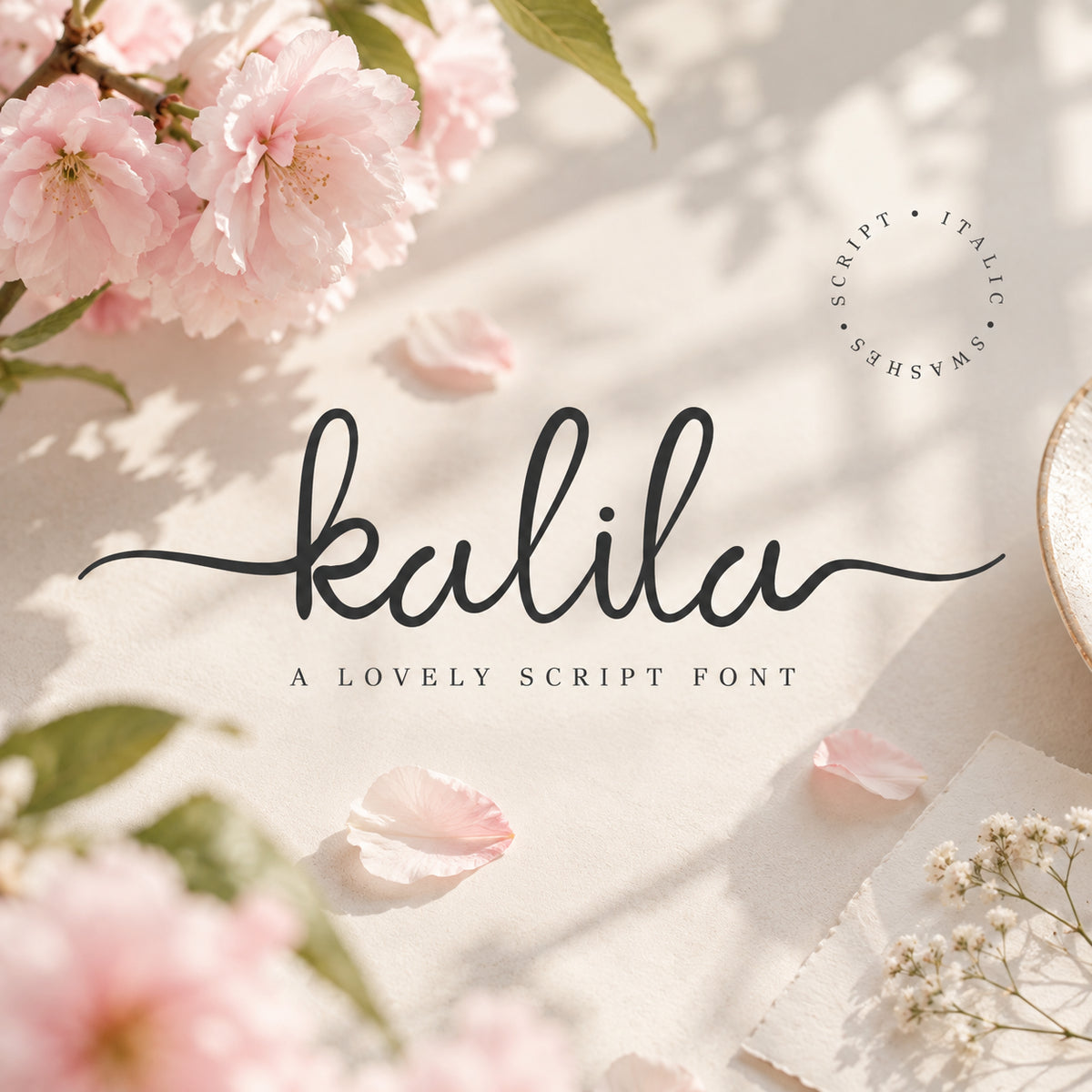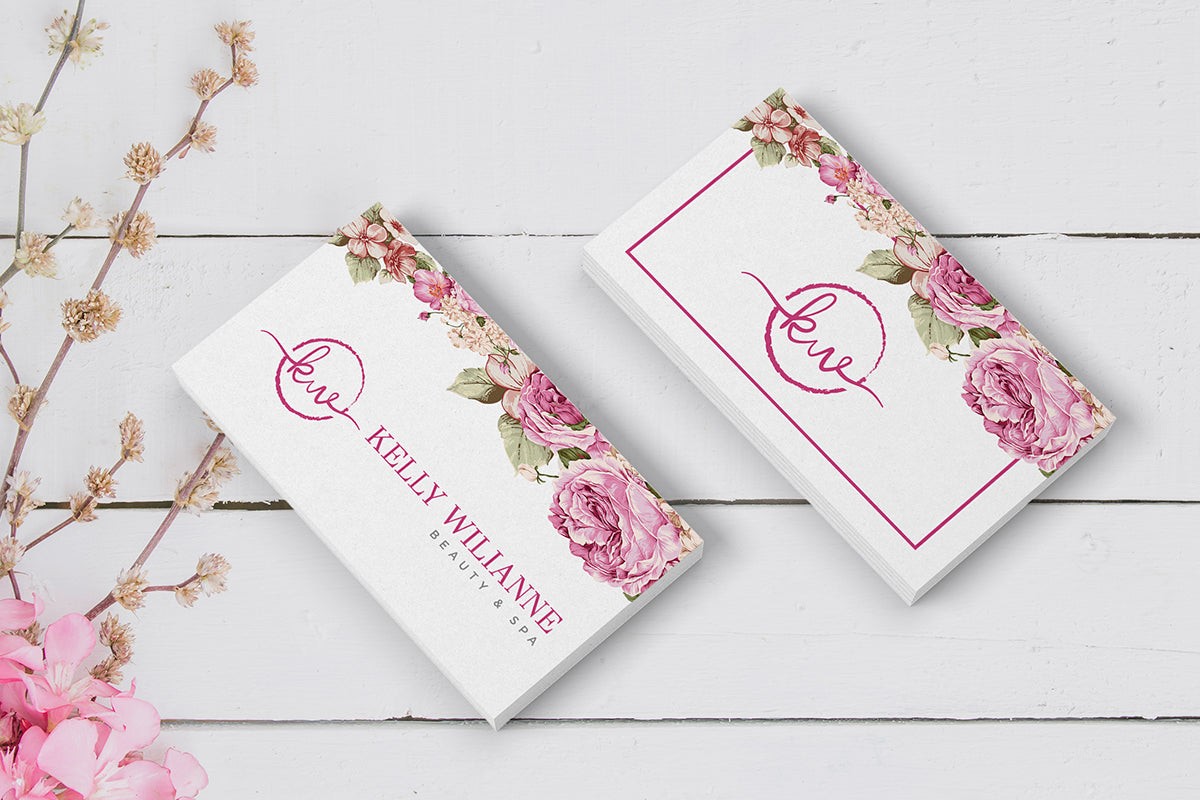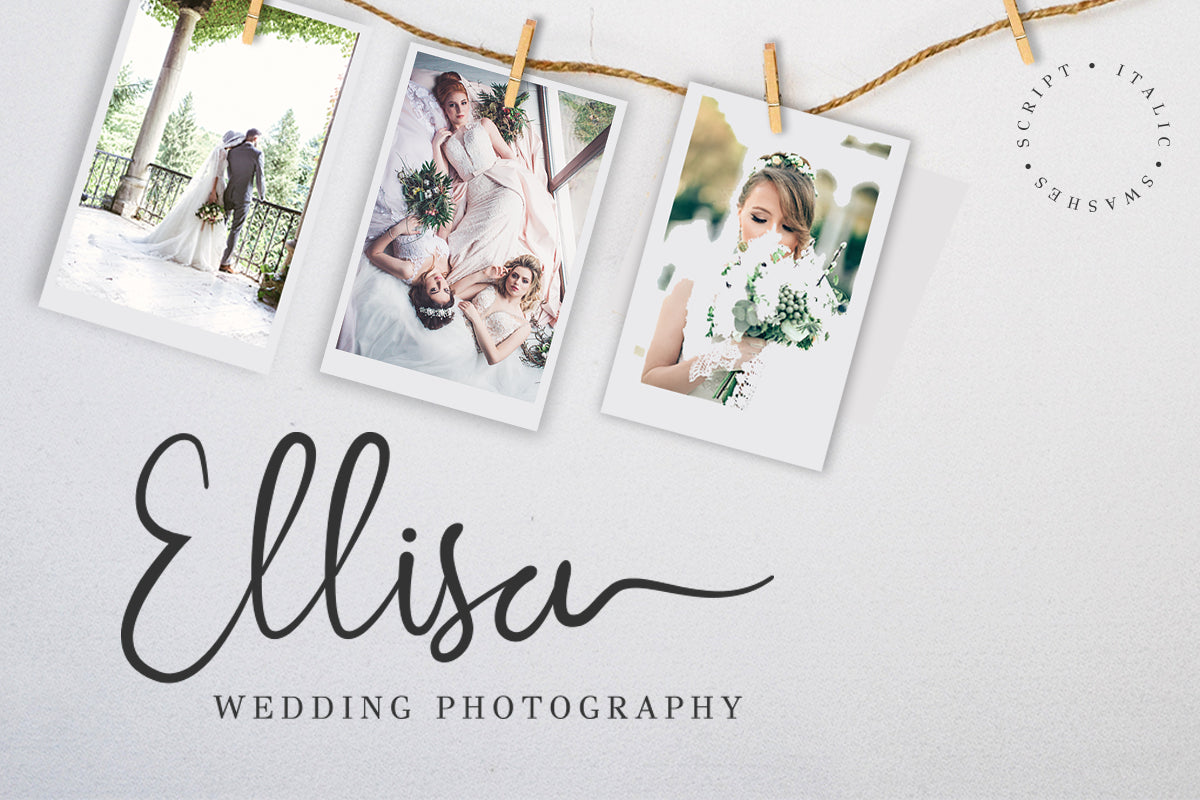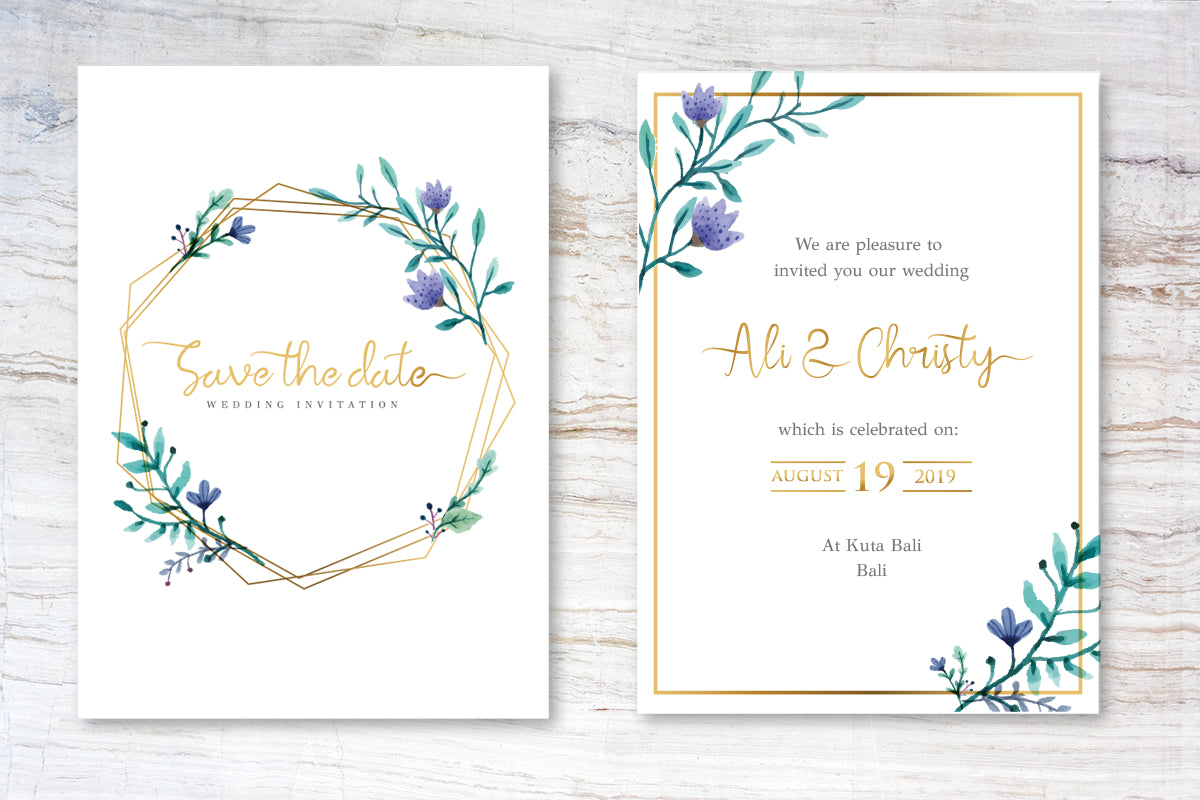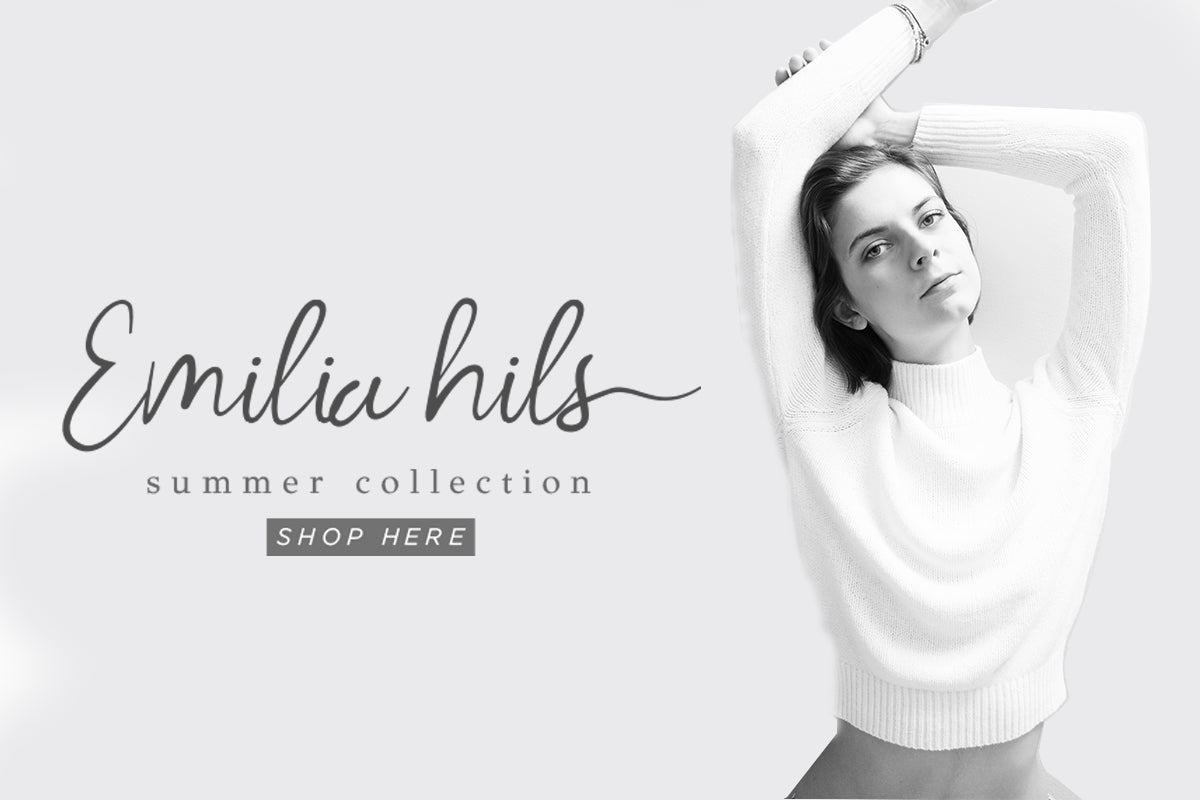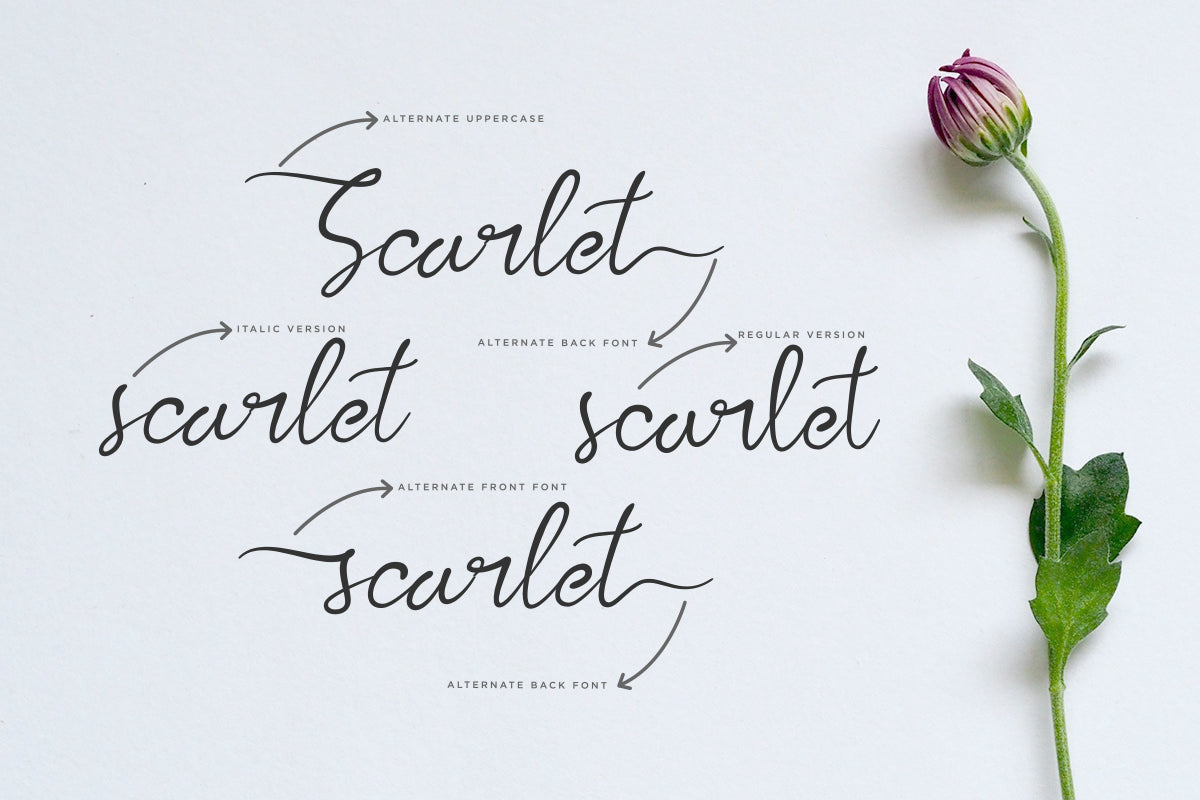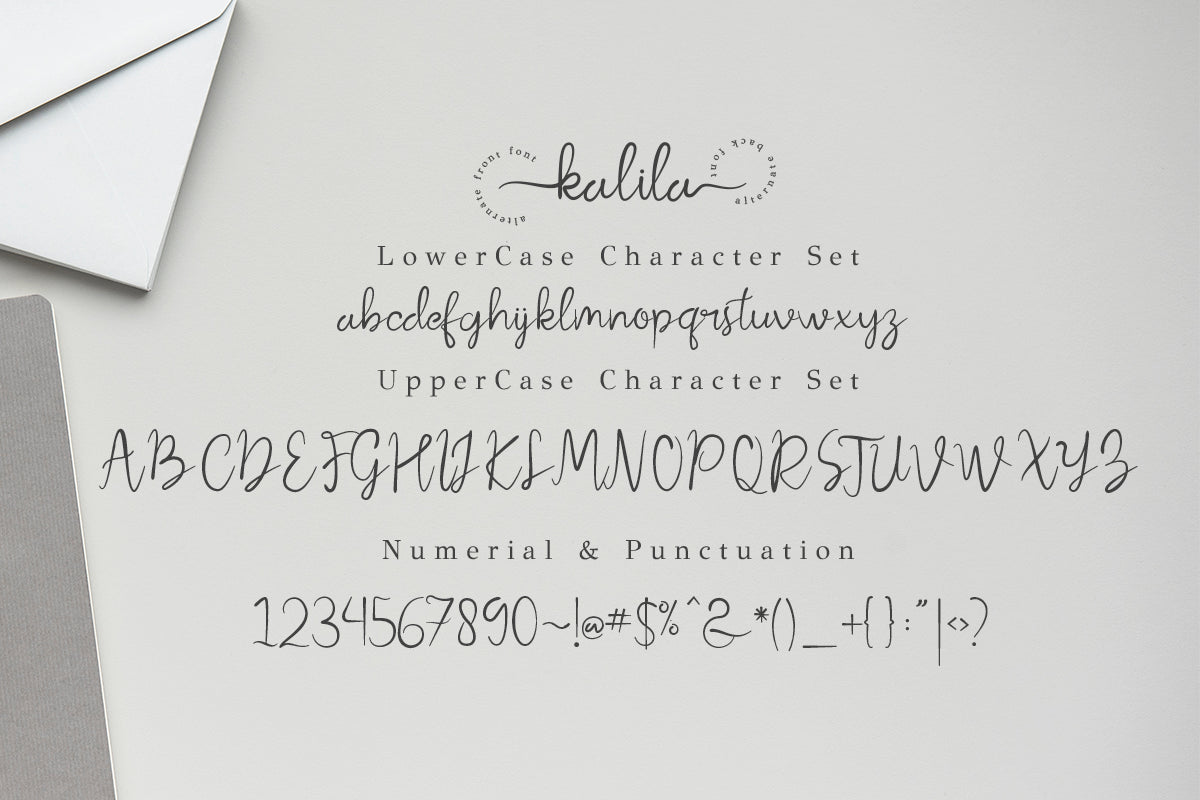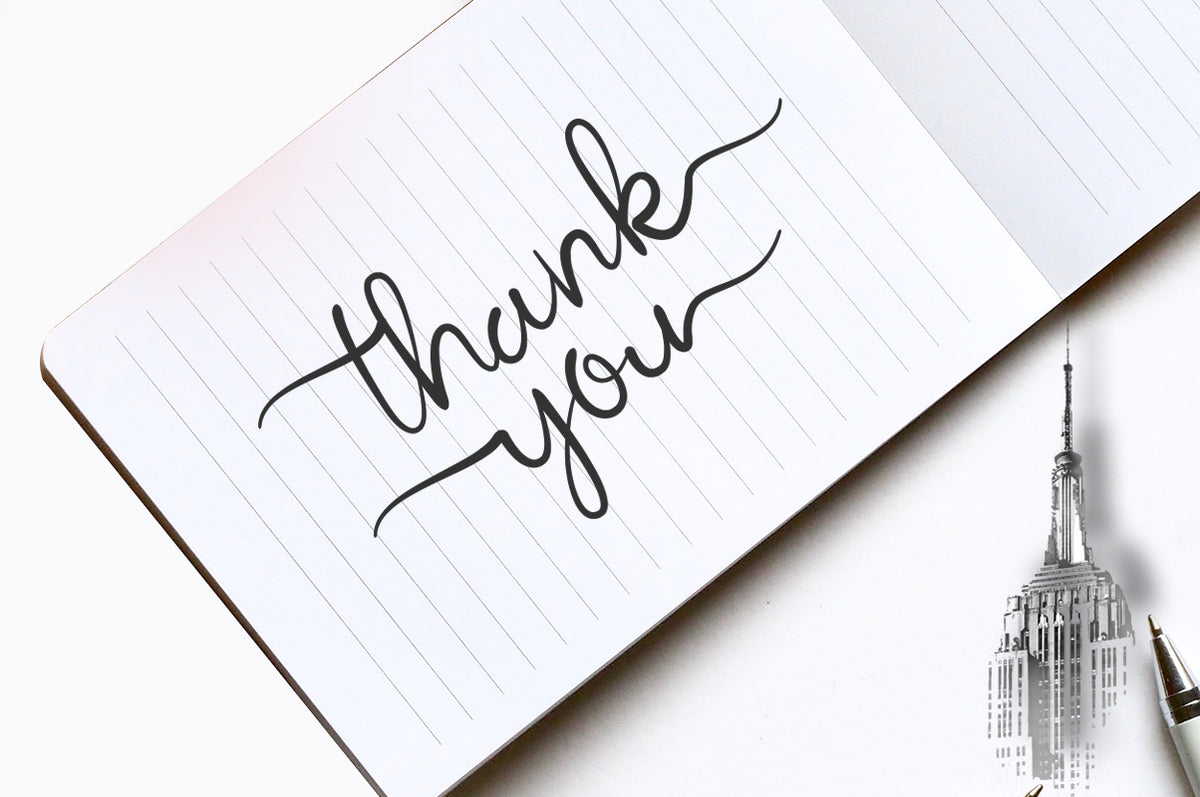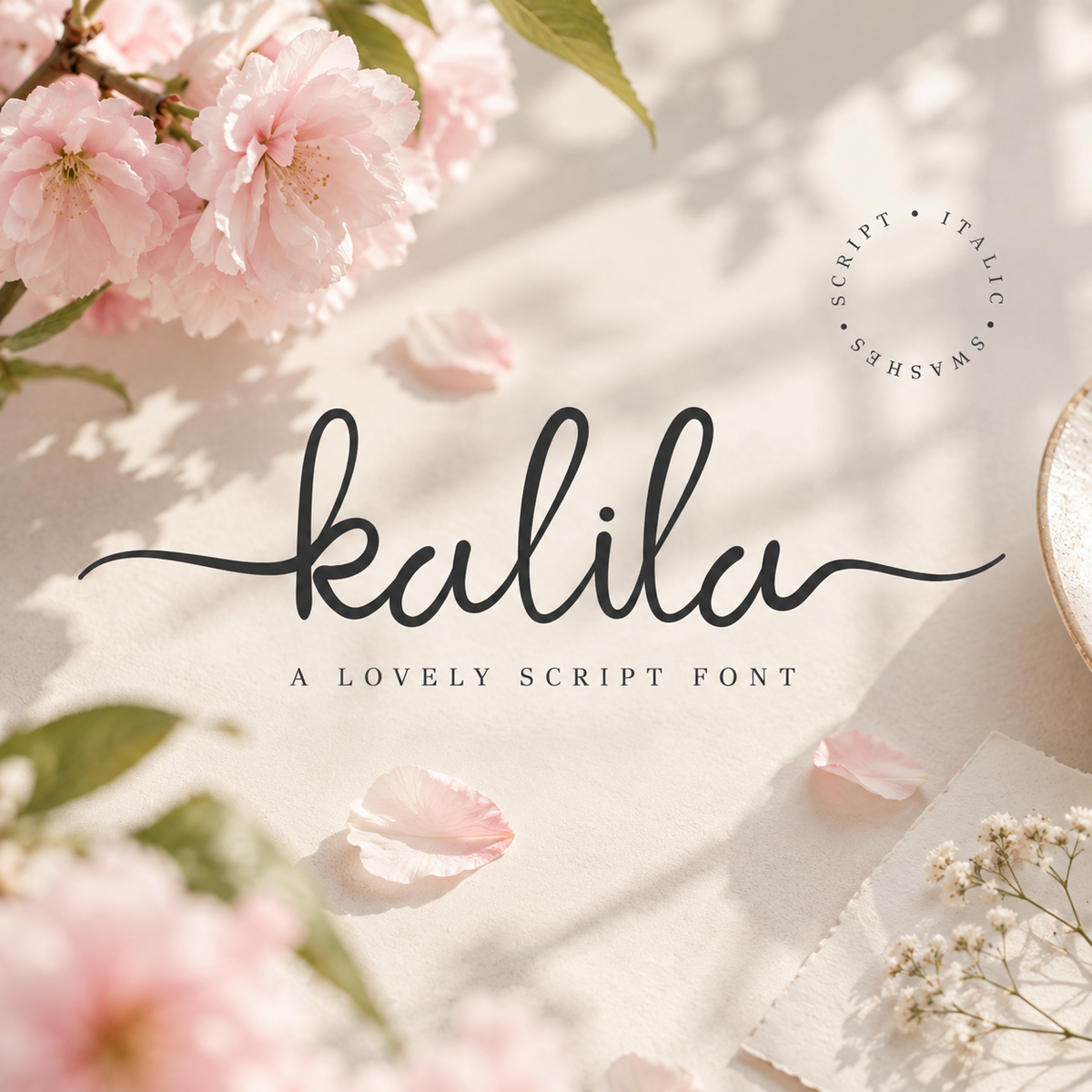
Kalila - Lovely Script Font
Kalila is lovely script font with graceful handwritten script designed to bring a lovely, romantic, and personal touch to your typography. Featuring smooth flowing strokes, elegant connections, and naturally expressive letterforms, Kalila creates the feeling of authentic handwriting while maintaining a polished and refined appearance.
Perfect for wedding invitations, wedding photography, stationery, branding, logos, beauty products, fashion projects, greeting cards, packaging, signatures, social media designs, and feminine editorial projects, Kalila works beautifully for both elegant headlines and personal details. Its charming handwritten character makes names, quotes, short phrases, and brand identities feel warm and memorable.
Whether you're creating a romantic wedding suite, a delicate boutique identity, a photography logo, or an elegant product label, Kalila adds a lovely handwritten personality to your designs. Its versatile script style makes it an excellent choice for designers looking for a feminine, graceful, and timeless typeface with a genuine handwritten feel.
Regular and Italic Script
Special Swash Alternates
Kalila is a handwritten script font featuring flowing strokes, connected letterforms, and swash alternates. The package includes regular and italic styles, uppercase and lowercase characters, numbers, symbols, punctuation, and multilingual support in OTF, TTF, and WOFF formats.